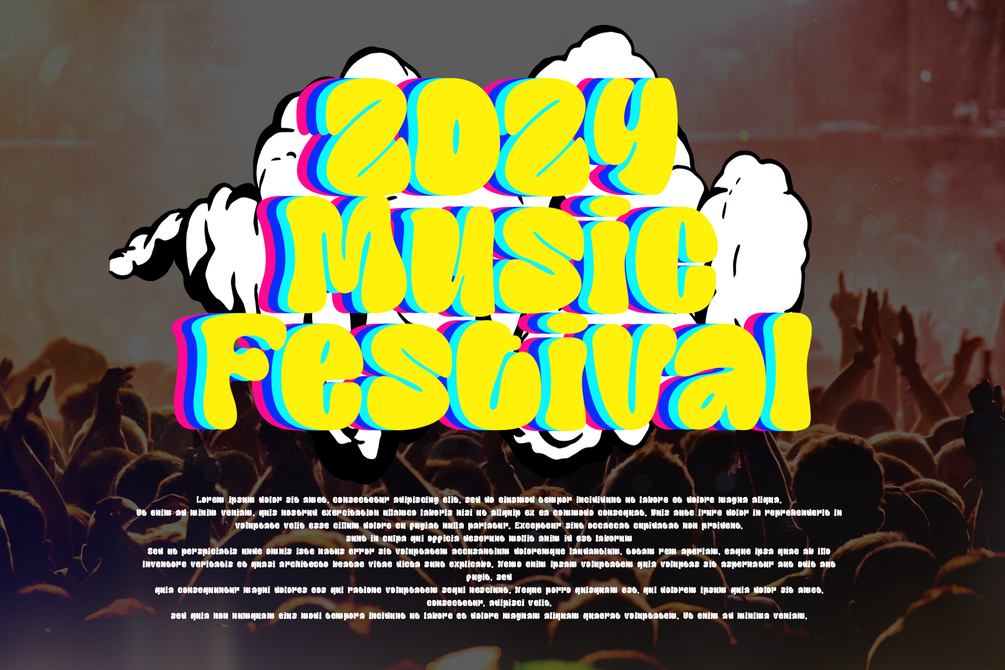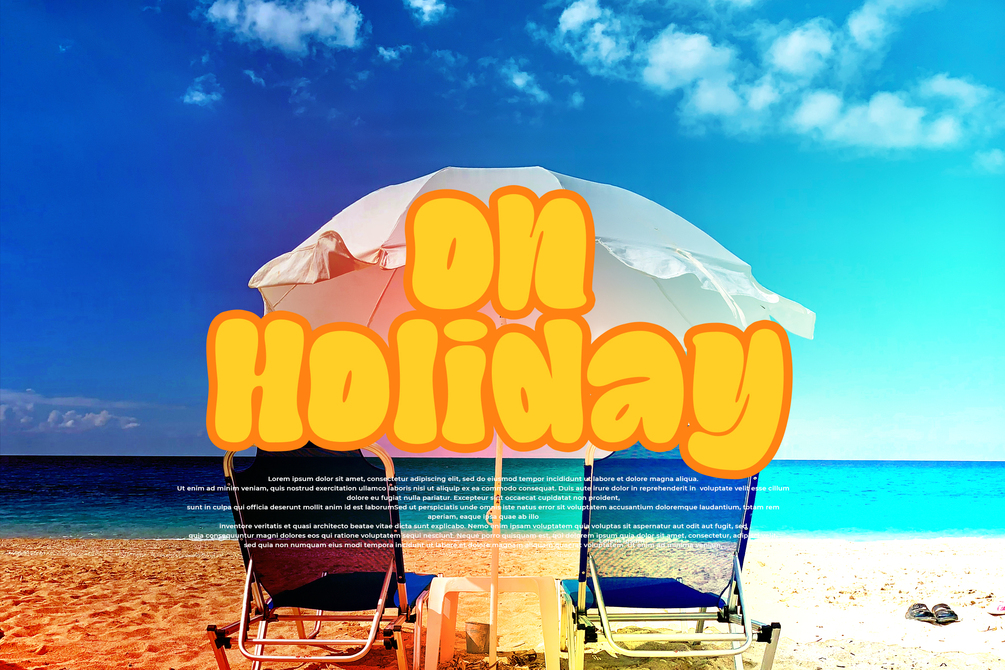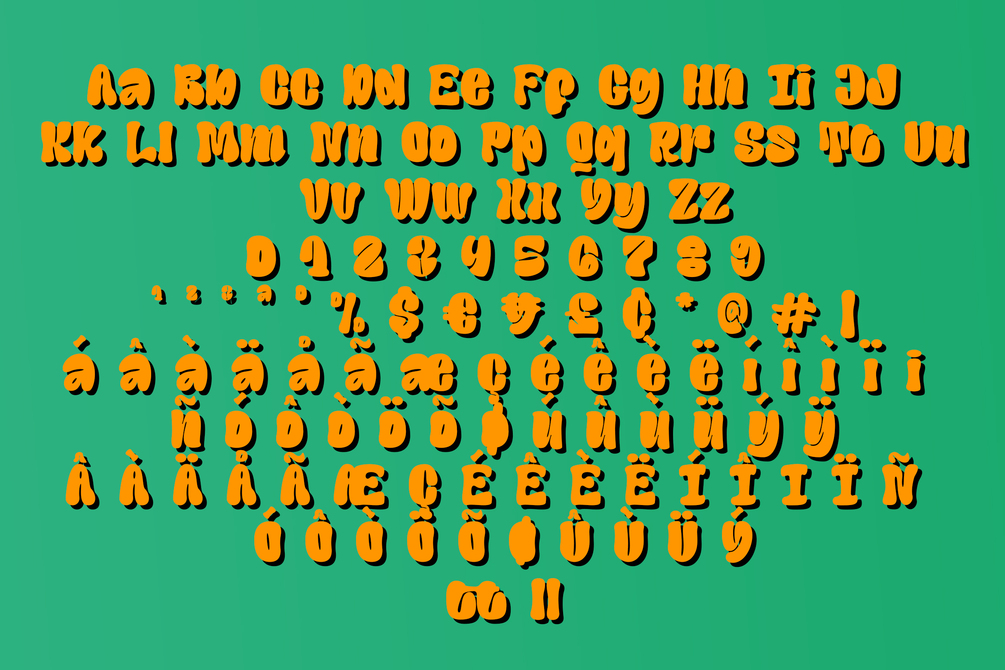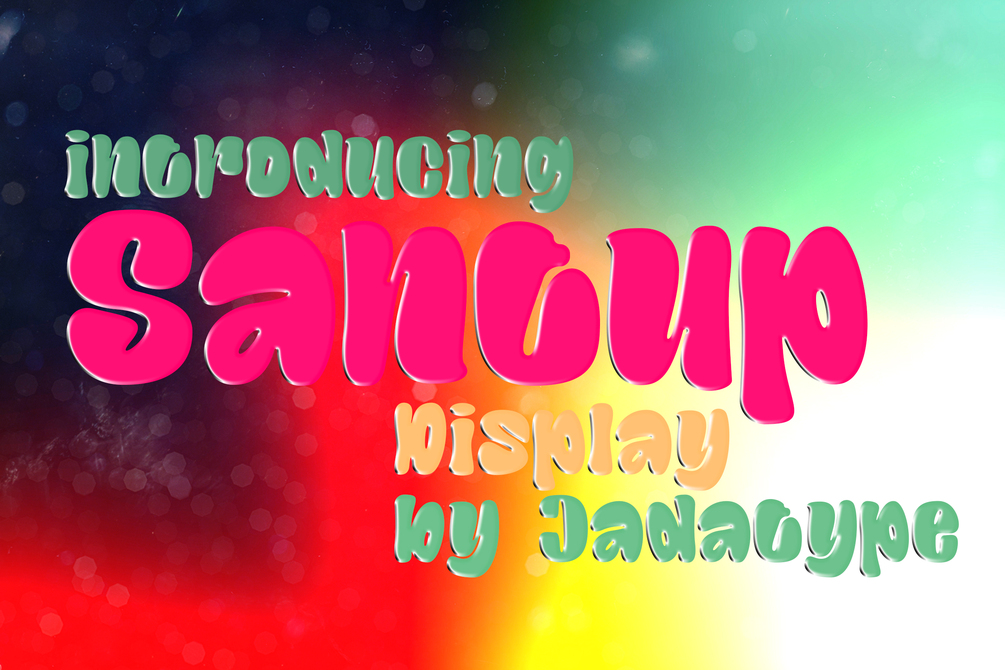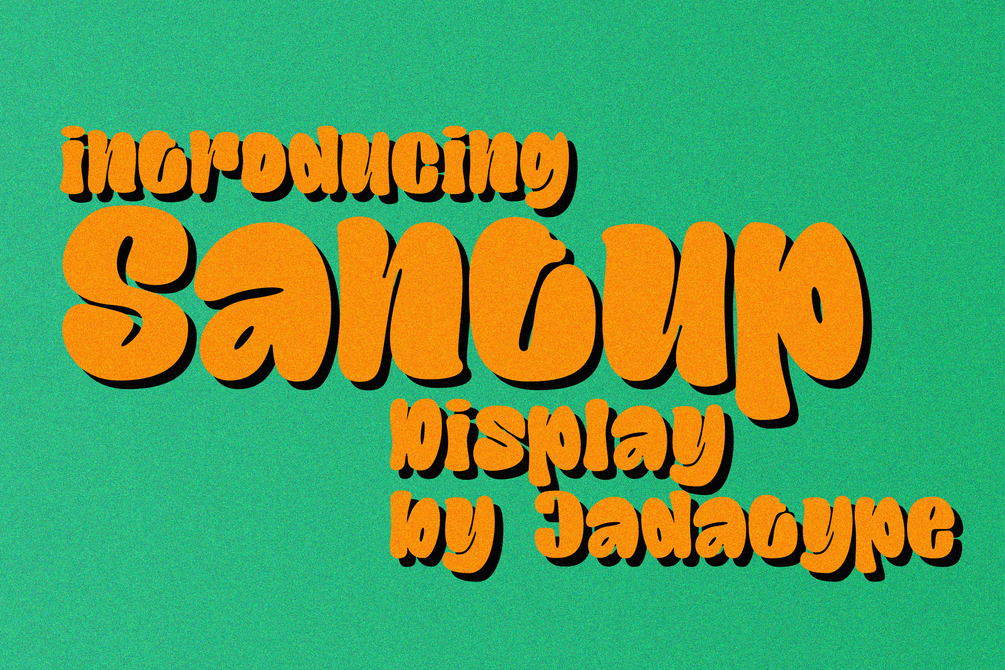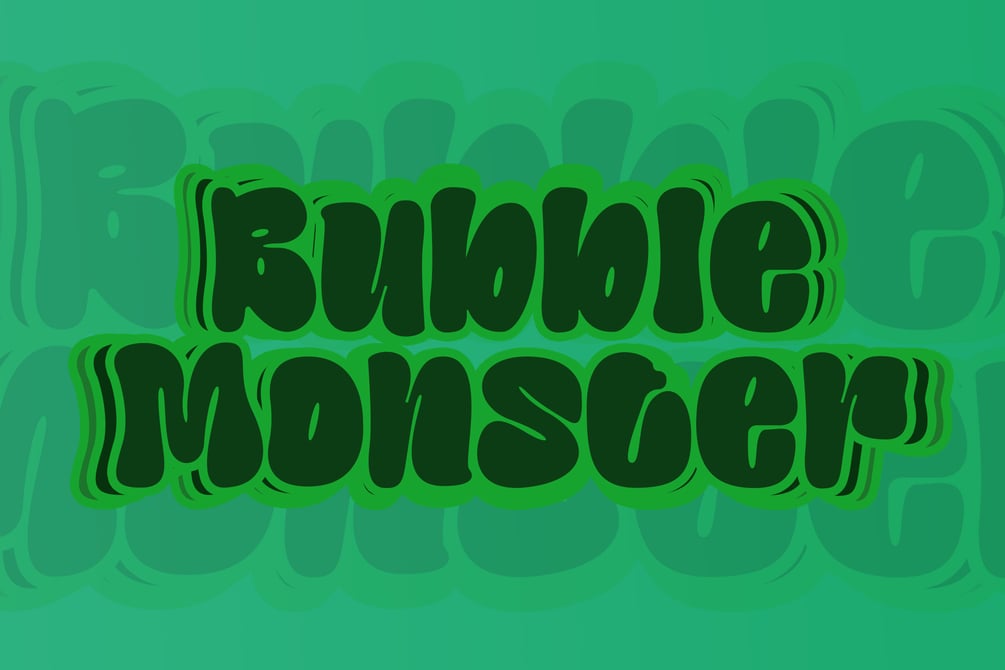
Santup Font
Santup is a display font that comes with a playful style. suitable for posters, tshirt, branding, social media, and so on. contains standard English letters, numbers, punctuation, and several accents that support multilingualism.